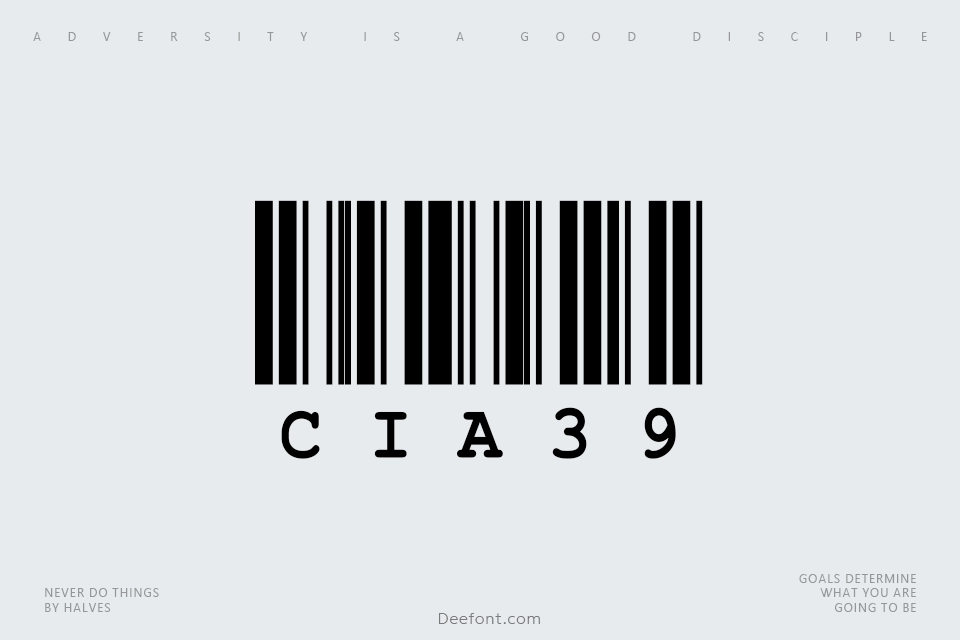
CIA Code 39 Font
CIA Code 39 Medium Text is a specialized barcode font designed to generate Code 39 (Code 3 of 9) barcodes, a widely recognized standard symbology used for encoding alphanumeric characters. This dingbat font contains 50 glyphs and features a medium-weight design optimized for creating readable and scannable barcodes. With its proven compatibility across various platforms and applications, the font remains a popular choice for inventory management, product labeling, and logistics tracking systems requiring reliable barcode generation capabilities.